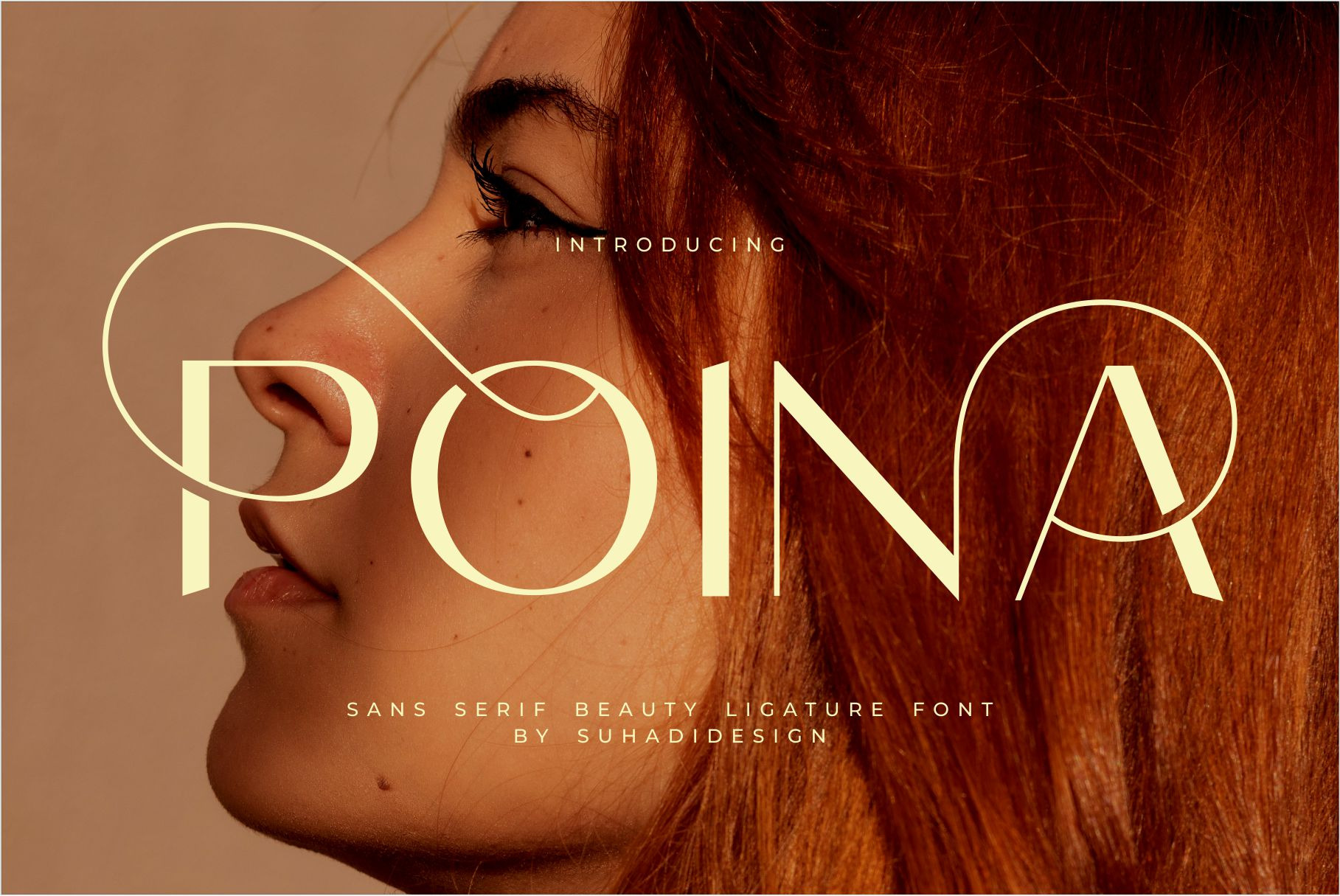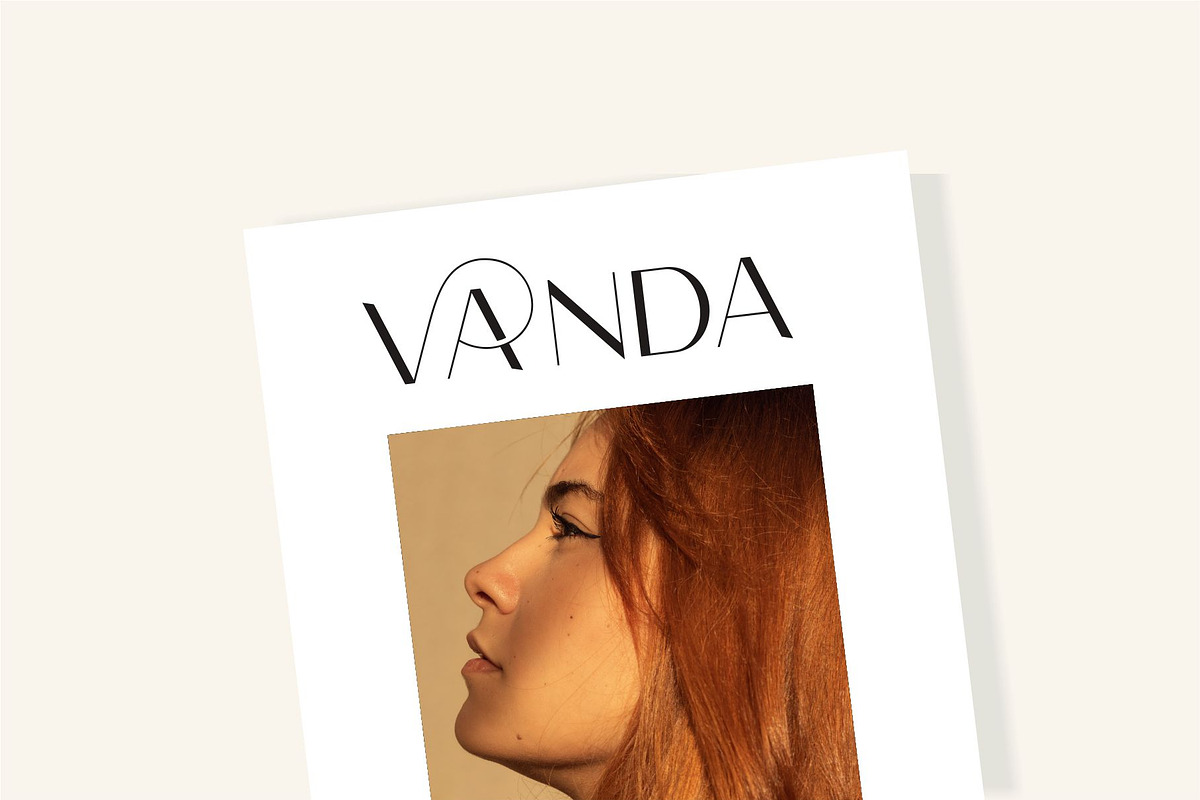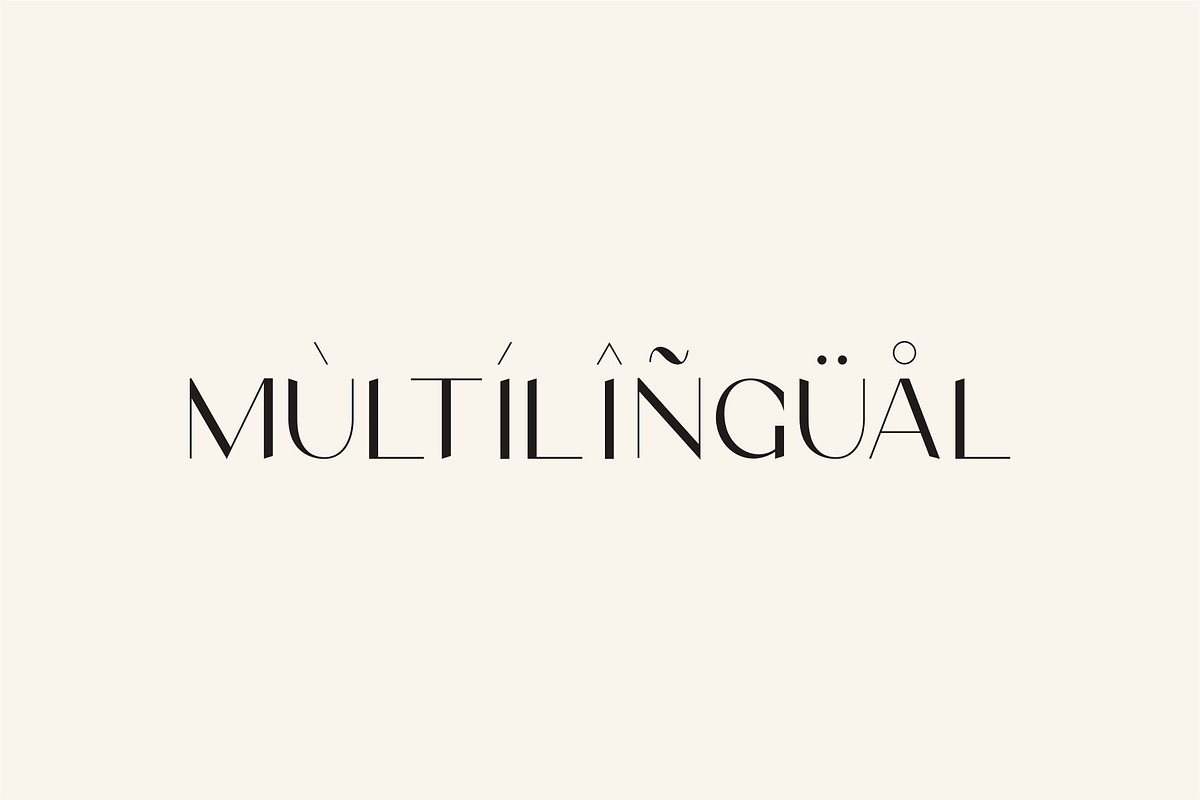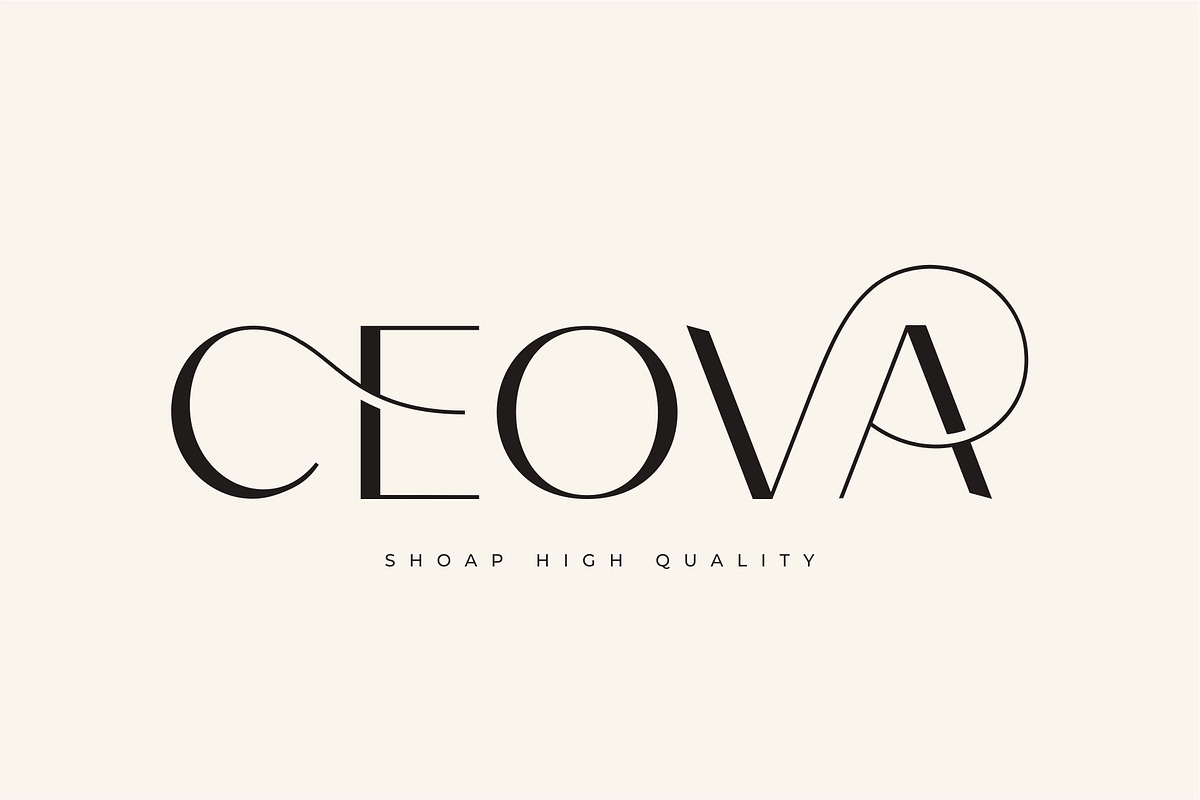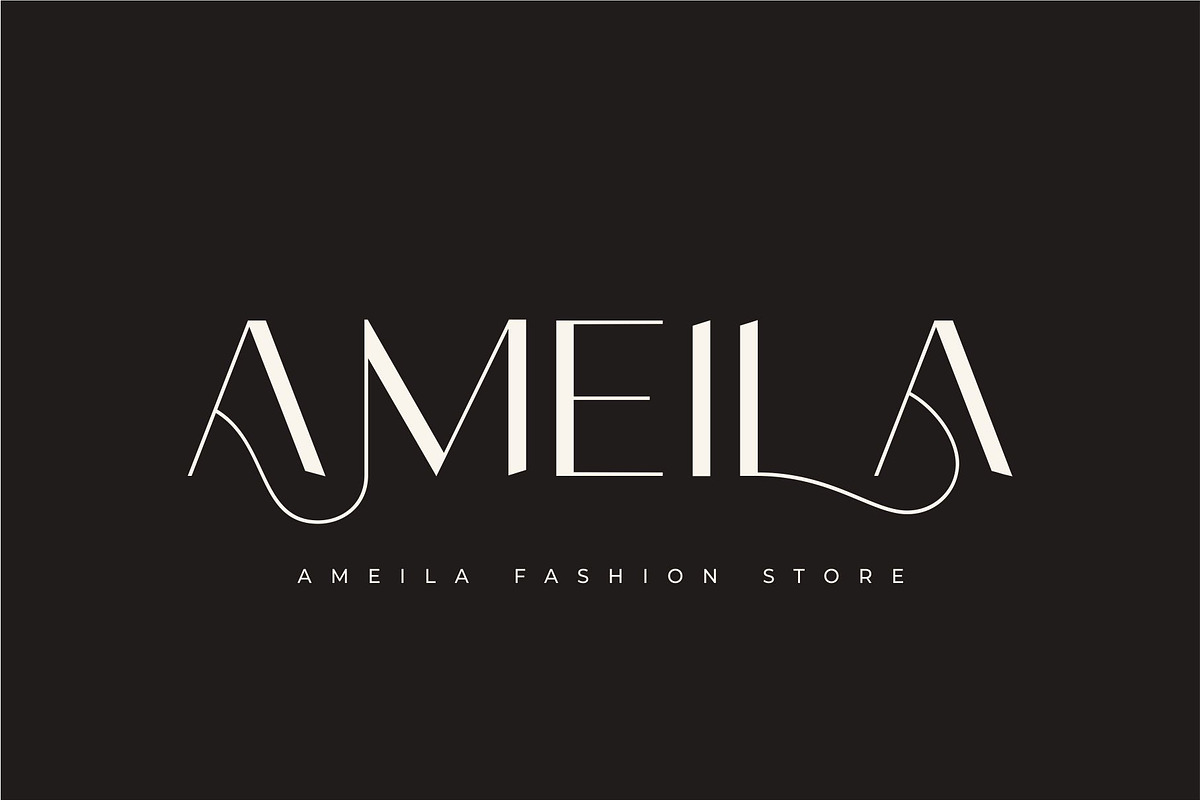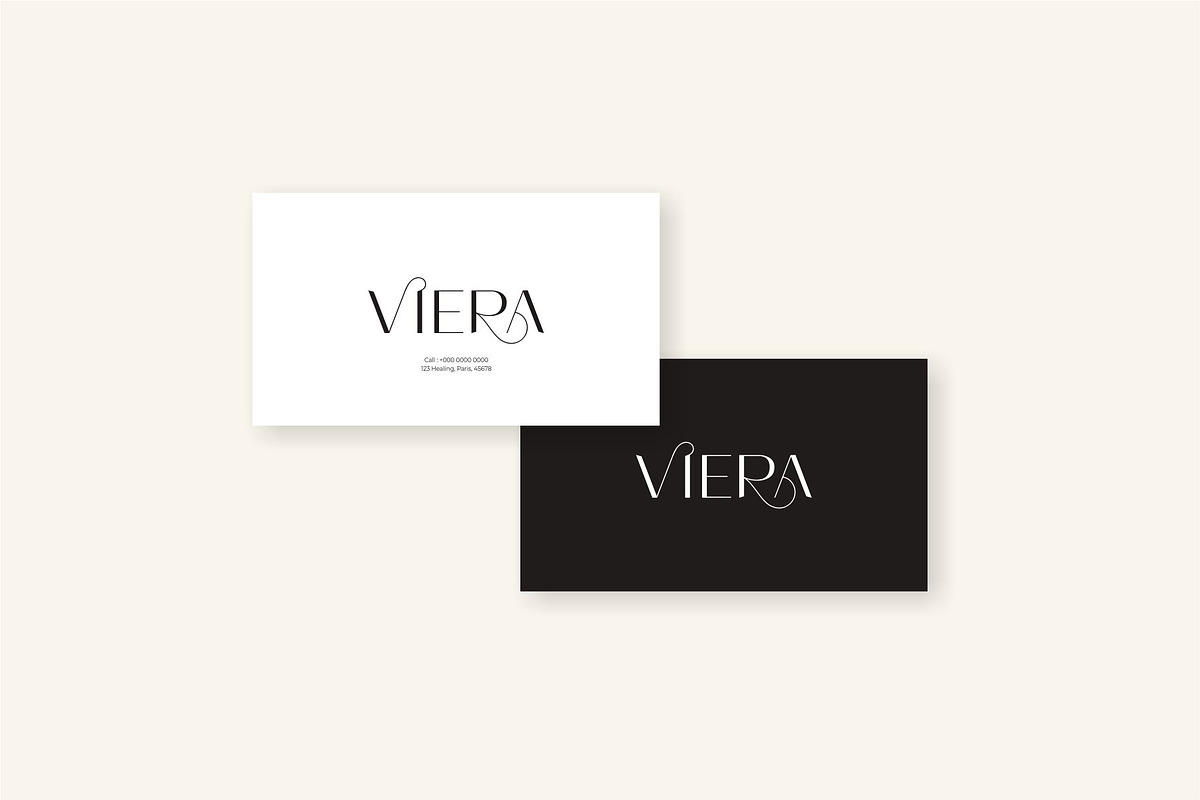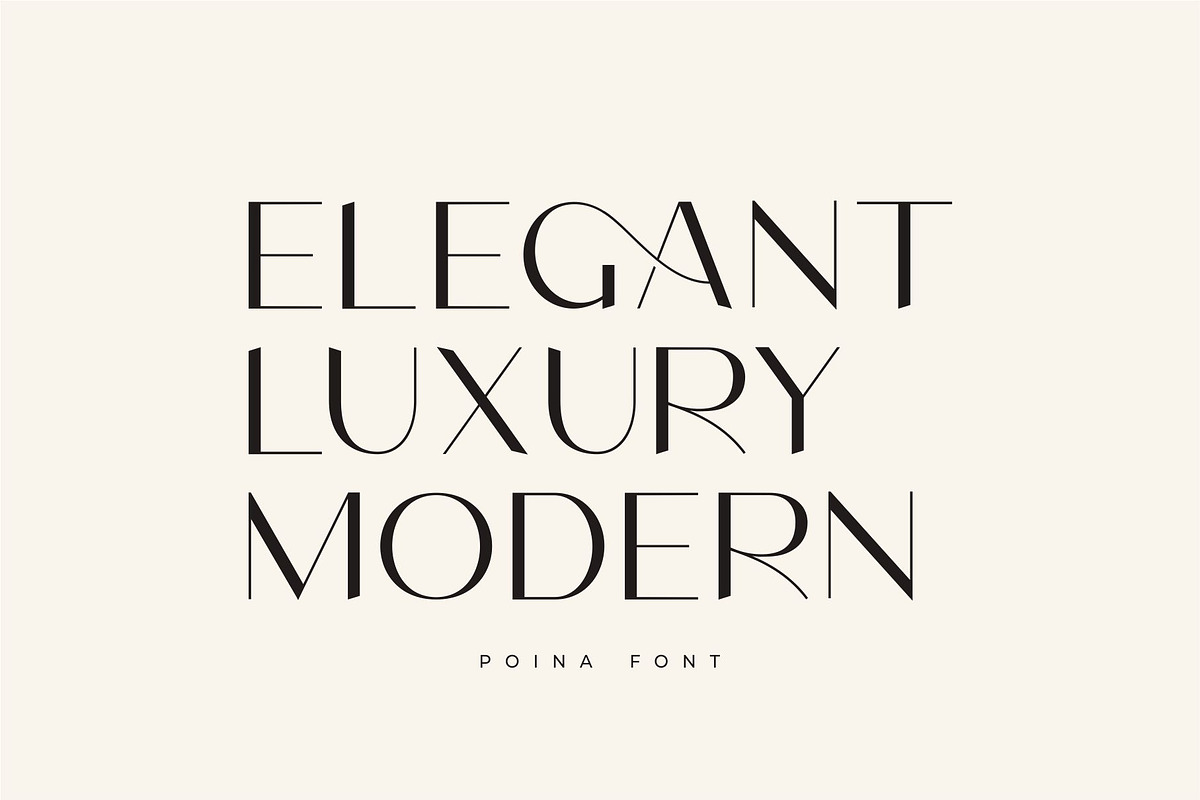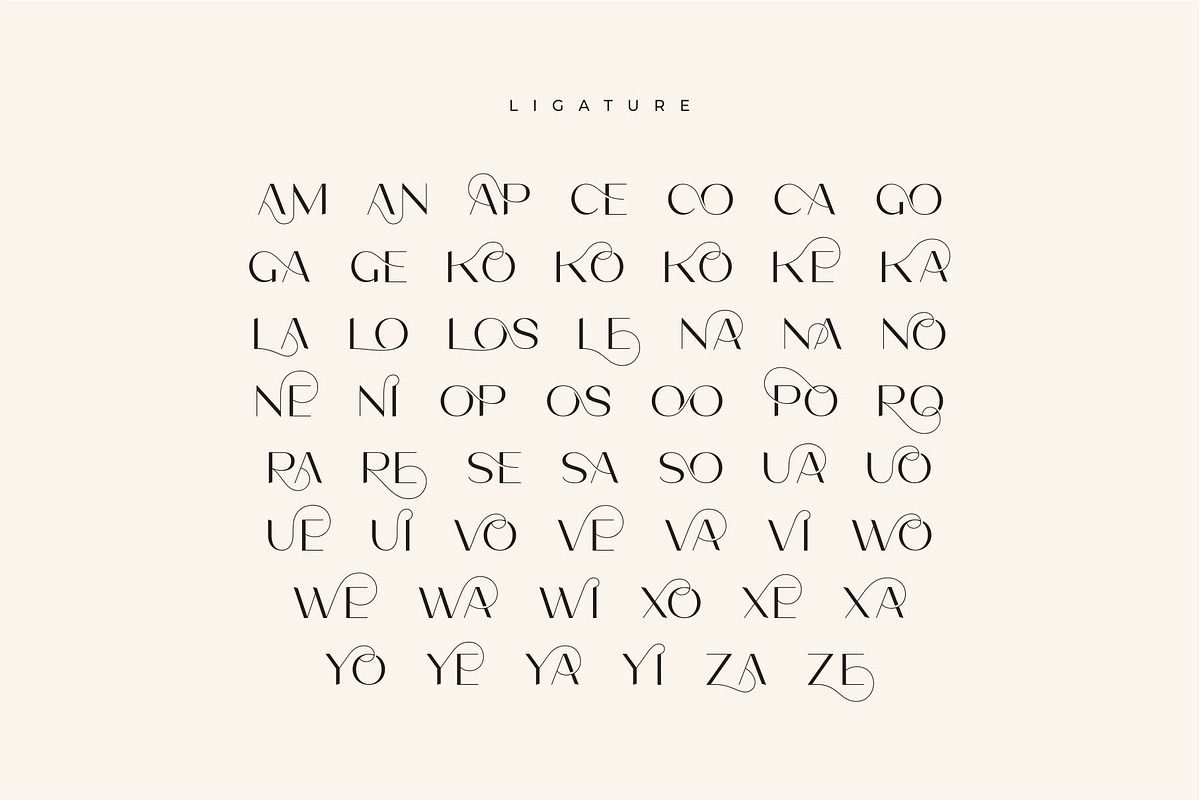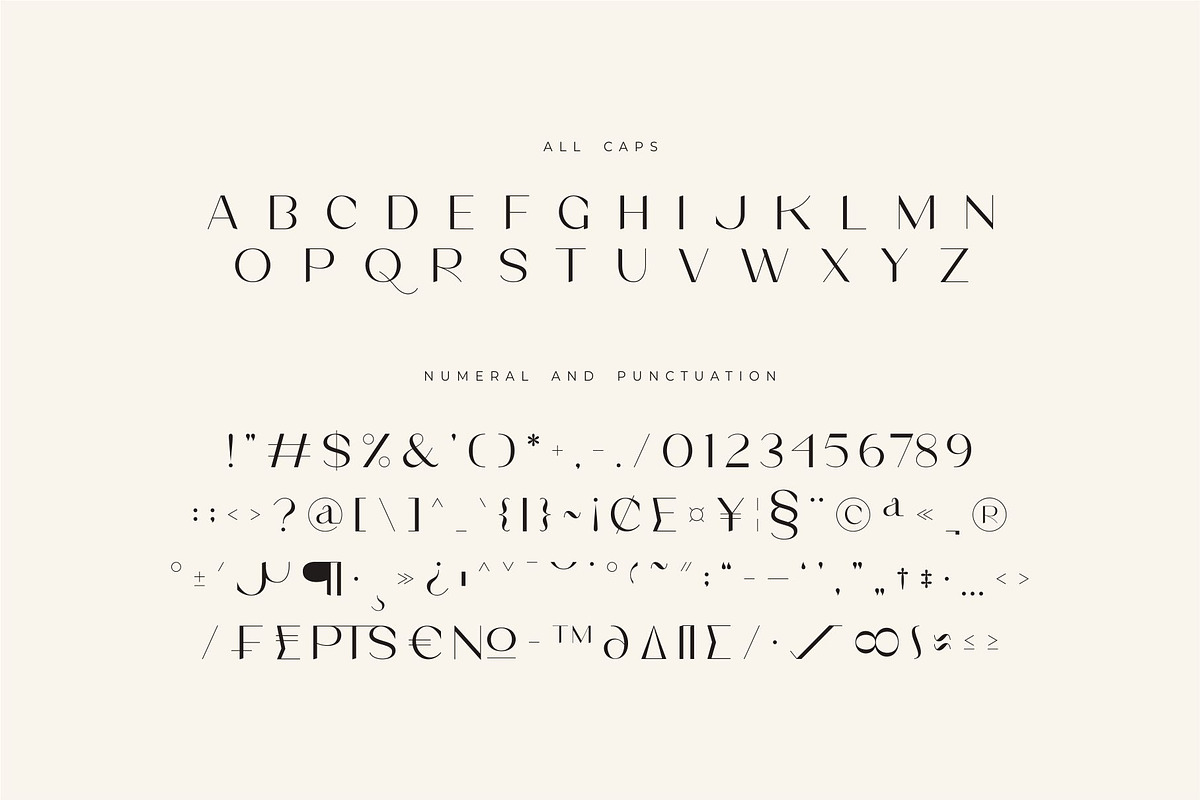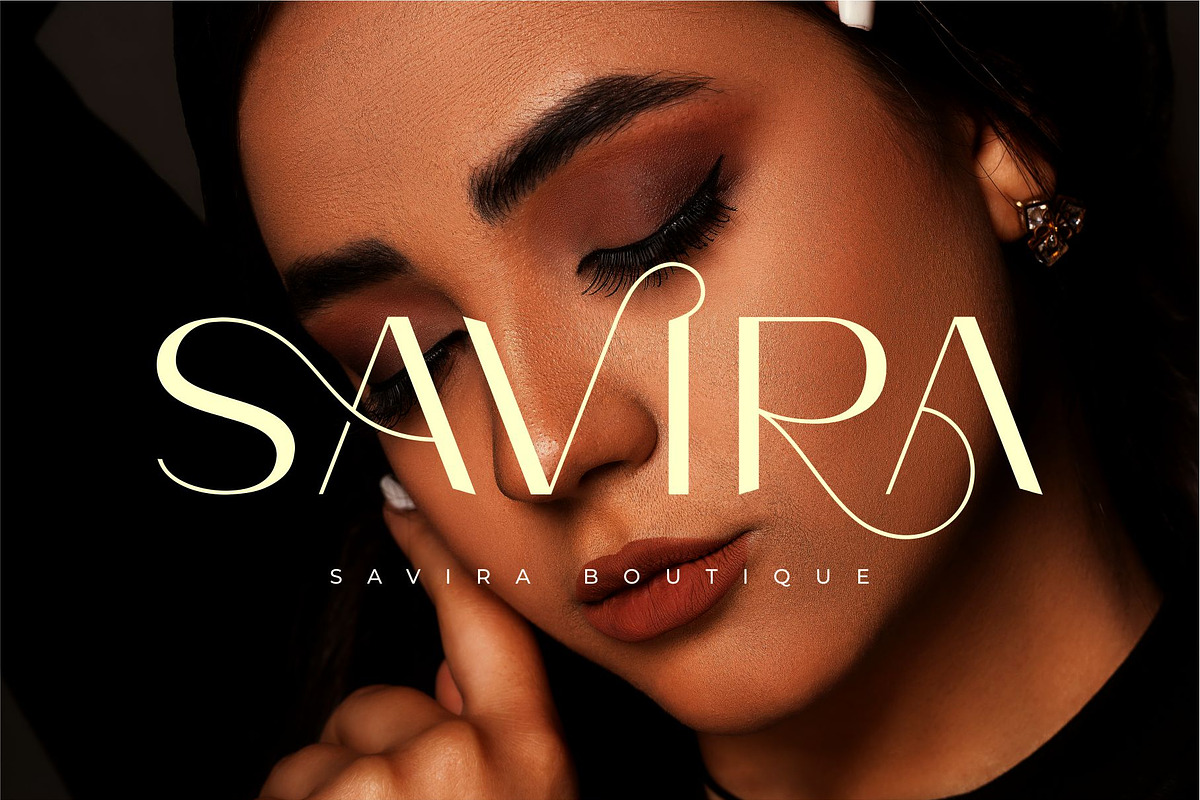
Poina - Beauty Ligature Font
Hello, ladies and gentlemen! The latest stylish modern font has arrived, and it's being sought after by many women and men. It's the Poina font. Poina is a modern and stylish sans serif font. With its modern design and ligature features, this font has become a favorite on the market. We've kept this font looking elegant, classy, and stylish. Poina is the perfect choice for cosmetics, beauty, branding, logos, wordmarks, magazines, designs, books, publications, branding, brand names, business cards, social media, classy designs, newspapers, branding, beauty, and other projects. Poina is here to elevate the quality of your designs.
• All Capital Letters • Ligature • Multilingual Support • Numerics • Punctuation